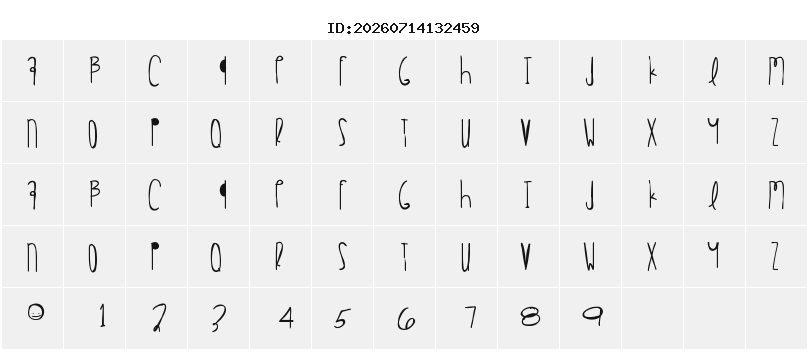
HappyEaster Preview
About HappyEaster.ttf
HappyEaster.ttf is a modern, elegant sans-serif font designed for ultimate readability and visual harmony. Perfect for branding, headlines, web design, and print materials.